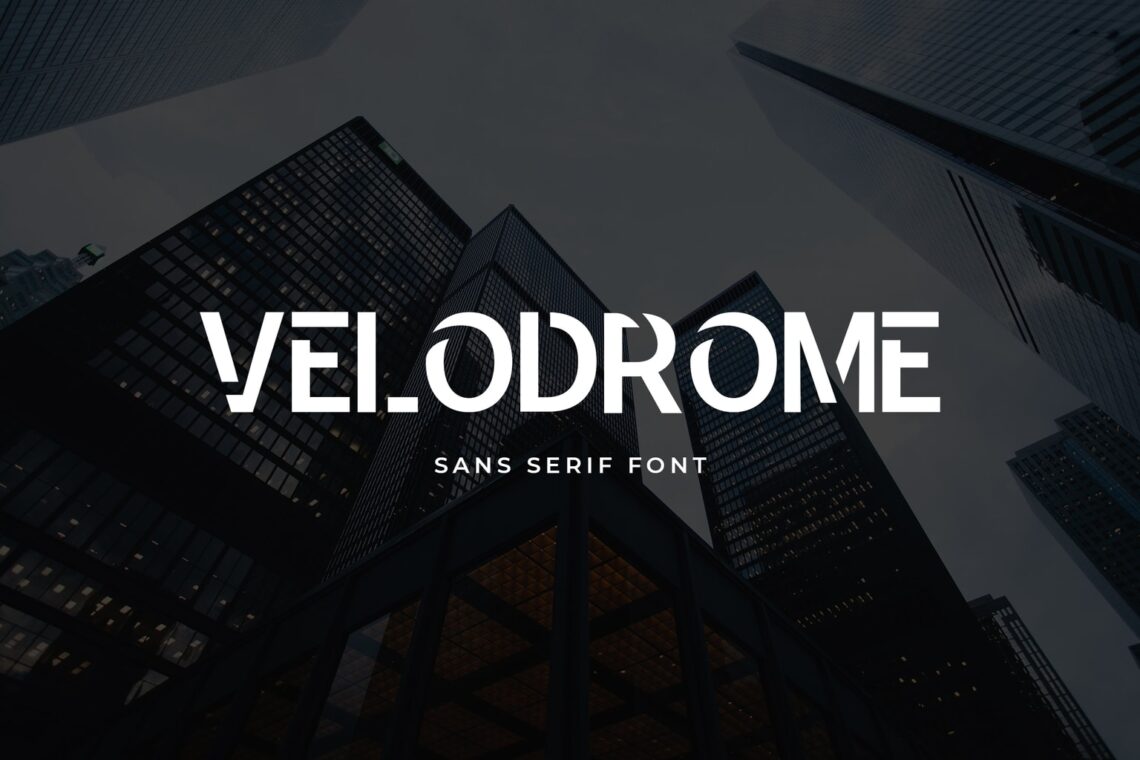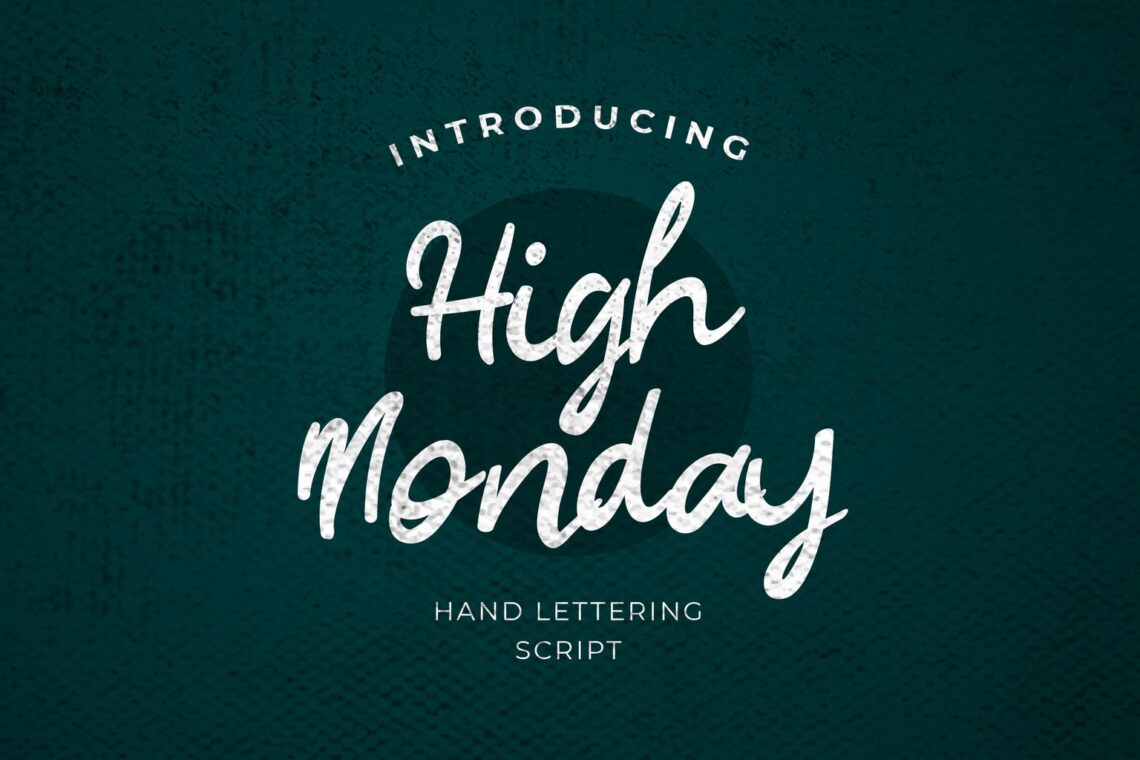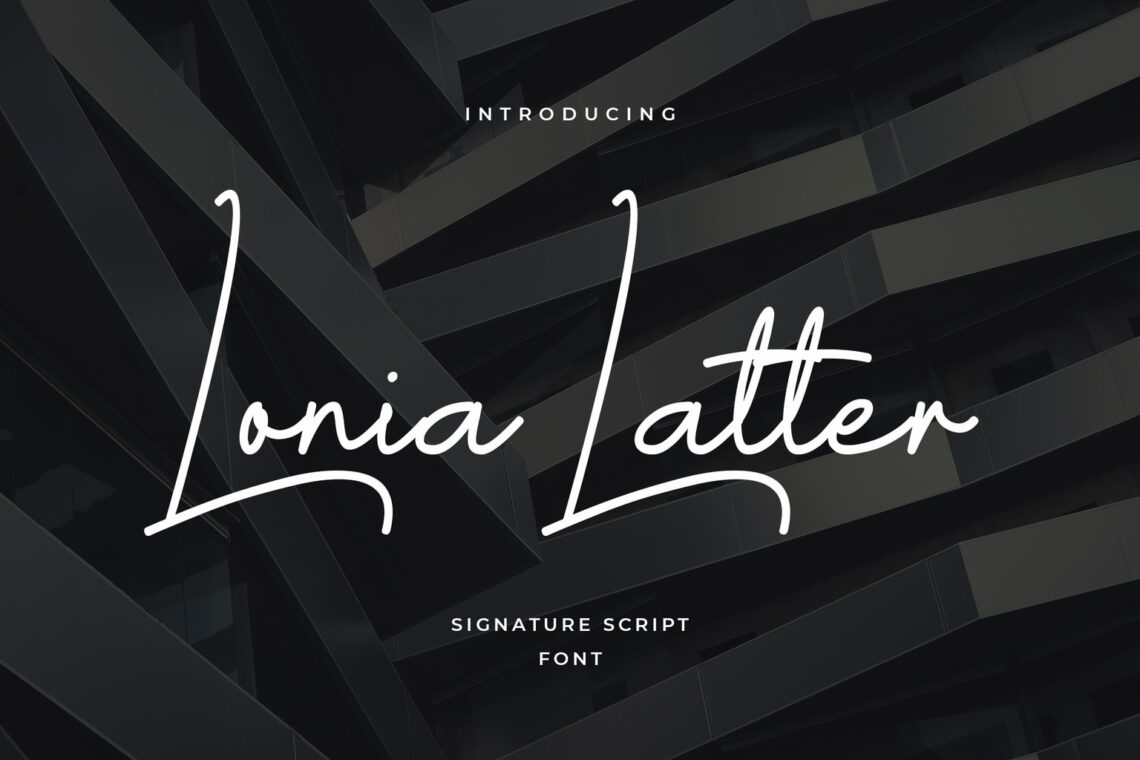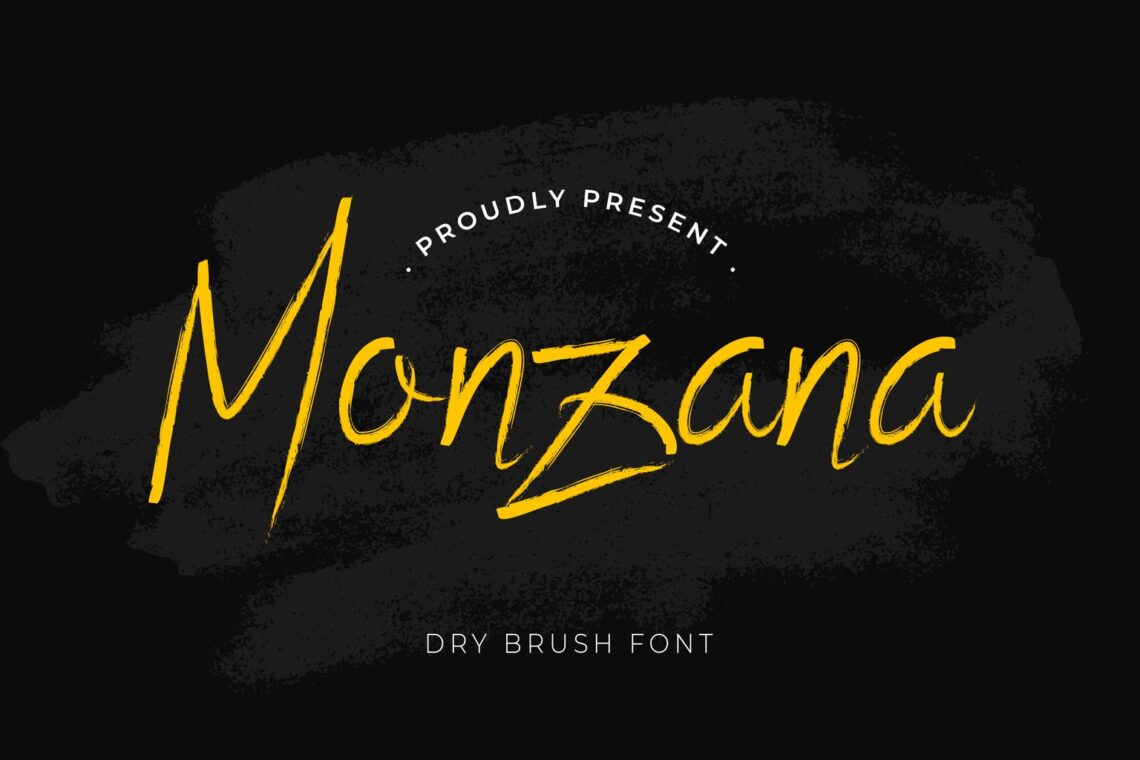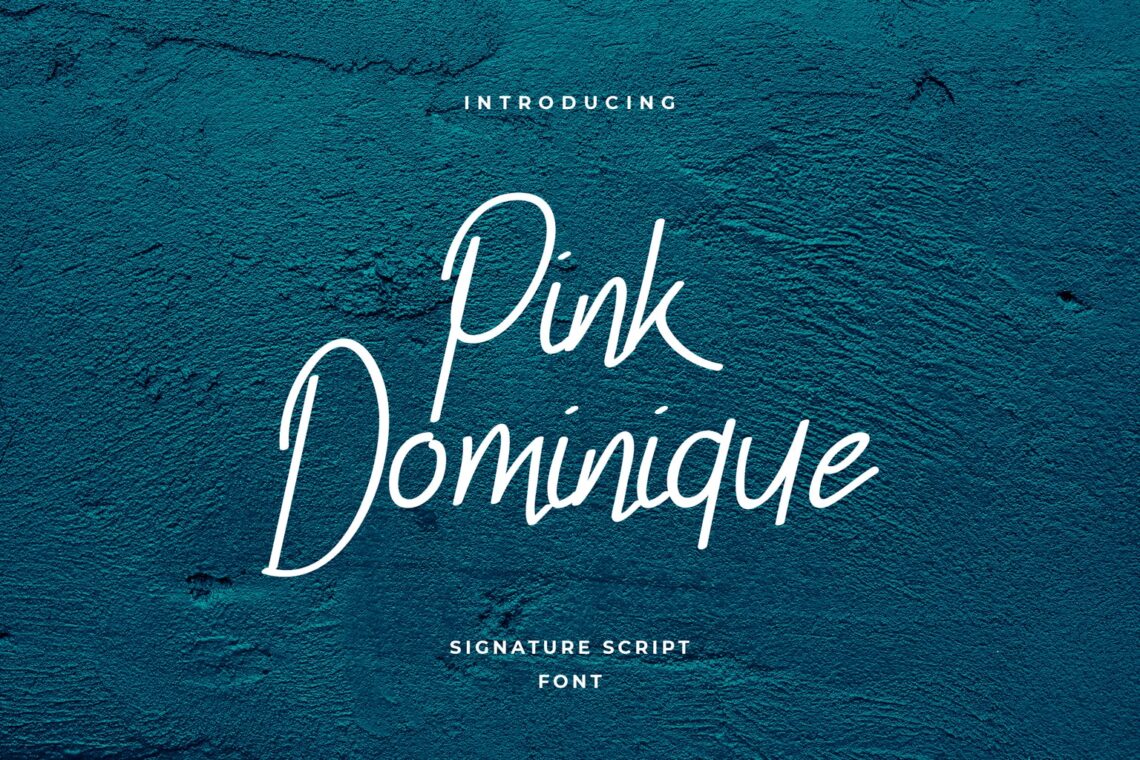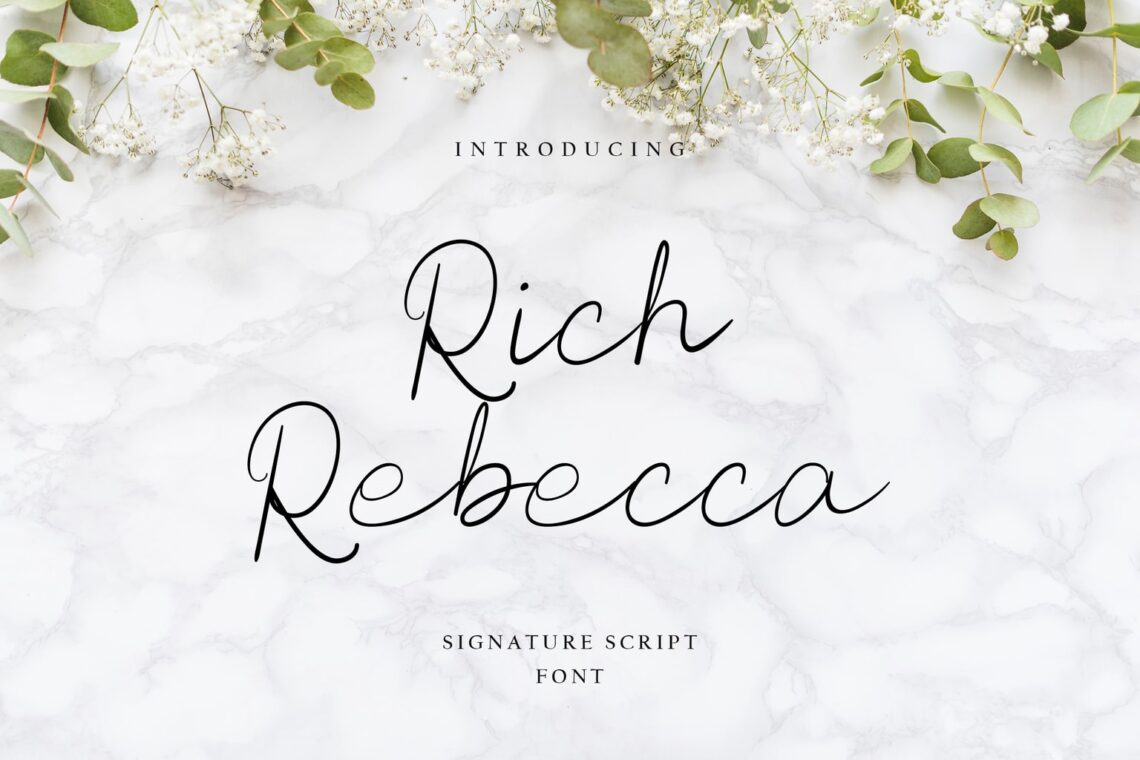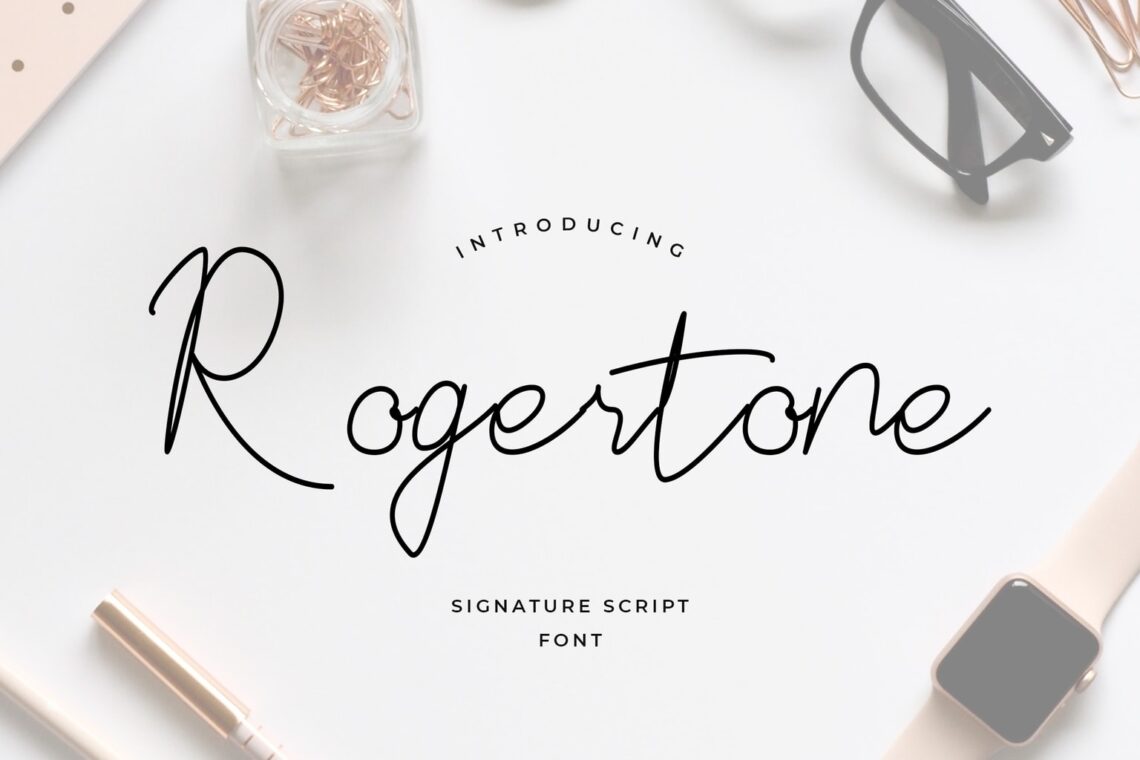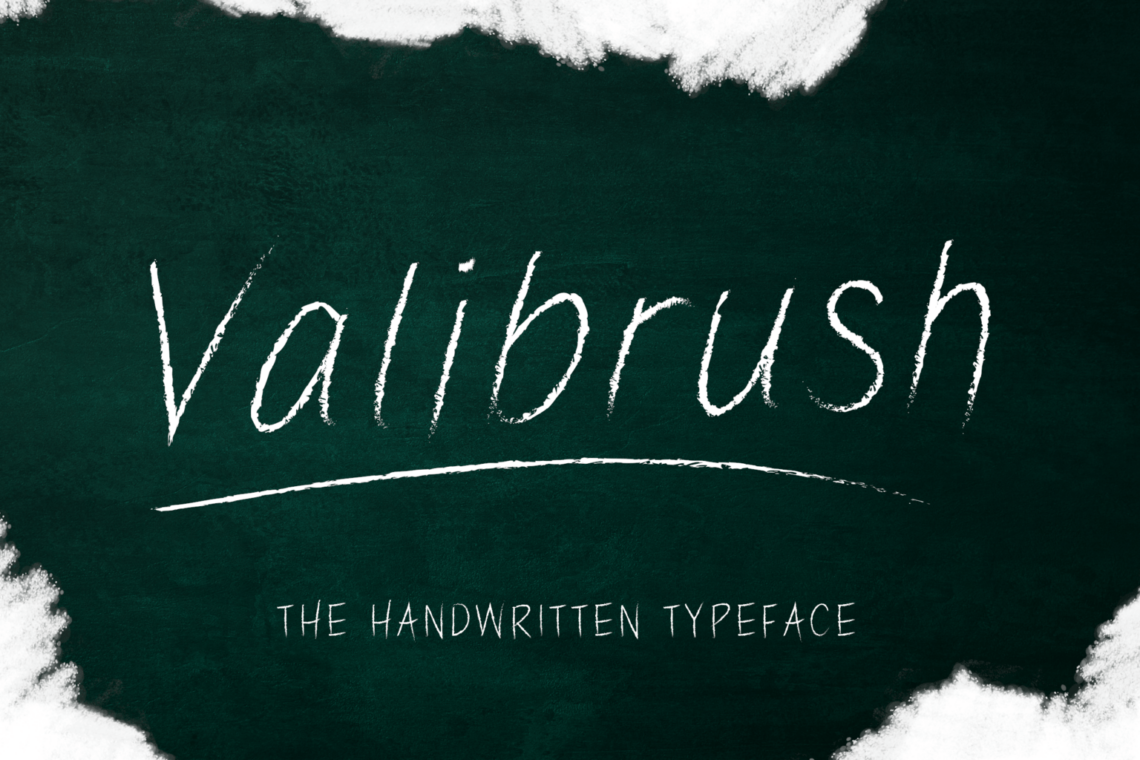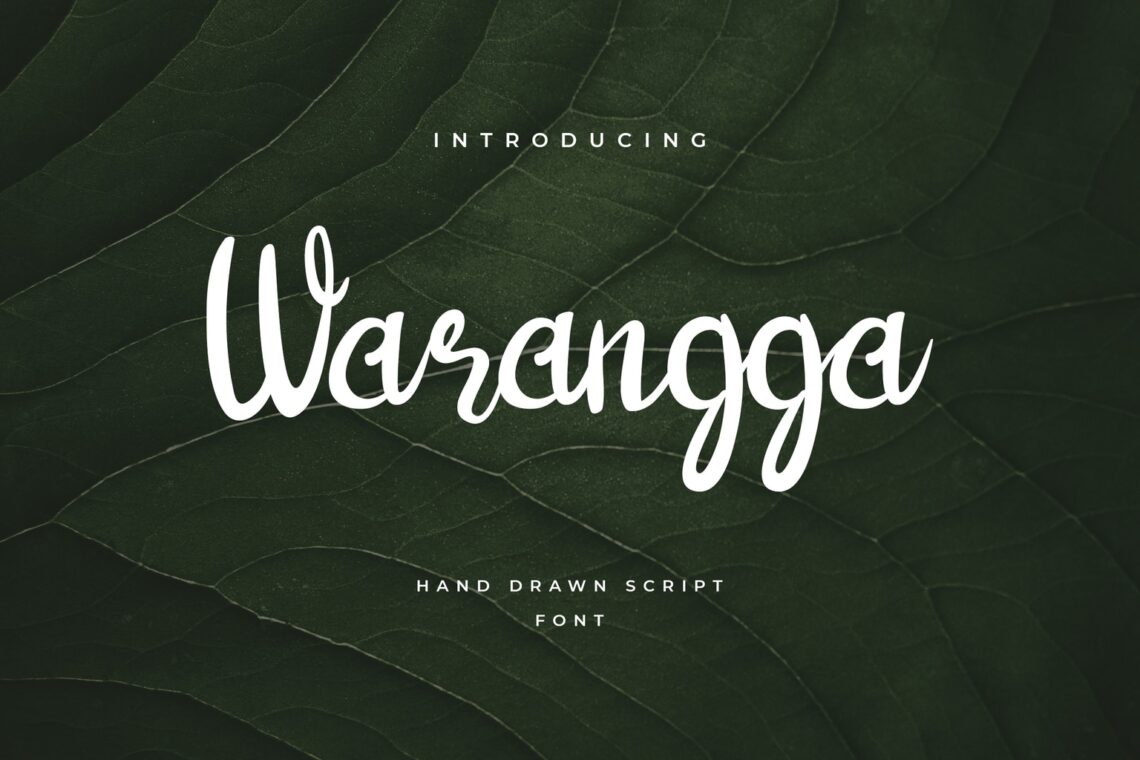
40 Best Font for Brand Design
1. Head Capital Display – font brand
A brand for vintage products will look brave and clear by this image. The bold uppercase letter looks steady to hold your brand.
2. Royal Kingsman Handbrush Typeface
A logo for scary movie brand house of production needs something sharp and full of brush. Thin in full uppercase is an implementation for horror.
3. Velodrome Display
A good point if you have modern Concept of business. Uppercase in break parts make it looks artistic and stylish. San Serif font like this give a strong image for public.
4. Neogordon Serif Display Font
brand name font design sometimes should be cheerful and light. Vintage and retro are combine in this font style. Therefore, it is suitable for packaging
5. Vertilaser Handrawn Script – Best font For logo design
Handrawn and it looks like signature. Made by hands. This is the way how you put it, in edge, in the professional layout, or in the top of paper size. The uppersize in the first letter of word has a great style. It looks like a hand writting font and package in exclusive ink.
6. Warangga Script Typeface
Famous with its artistic touch. enjoy to have it in T Shirt and tote bags. You could change its background and make it looks professional. Whenever you want to promote a new brand, a new short story, or a new novel, do not skip this font.
7. Black Fold
Opening distro needs something unique. Try this to make your T Shirt collection famous. Get it only in UI Creative main website in affordable cost. This new face of typography is adorable both for mobile users and desktop users.
8. Strongvila Handrawn Typeface
Food and beverages logo needs something colorful like this. brand font design from Strongvilla makes everything looks tasty.
9. Blue Island Modern Script
Casual style and winter collection needs something white and clear like this font.
10. Elsa Sayonara Modern Script
Enjoying a cafe with something rustic like this. Feel if you are in the 19 th century.
11. Quinn Marriot
To help your hotel and travel agencies look more emodern, try this.
12. Beach Front Modern Script
brand logo design font is suitable to use in swimming material and items brand. ts unique edge and curve, make it becomes the suit font in semi formal and formal event. You will see its vintage style and applied it in invitation, title of the journal and more publishing contents in social media. Even for your catalog of new season products, it is worth.
13. Bandonde Versatile Serif
Wanna look more formal? Try thiis simple but versatile touch. Think smart to insert in as your book logo or company.
14. Valibrush Handwritten
Think smart on having the hand brush style. It is suitable for product title and a title of children book story. A fancy style in it also looks great for T-shirt typography. Everyone in any industry may use it. Wanna make a house production? Good job if you insert the font.
15. Rogertone Signature Script
This is a signature script for anyone who enjoy this font style. It is good to have it in paperbag and food packaging.
16. Rich Rebecca Signature Script
brand font design online can be found here. for wedding and birthday company, you need this romantic font.
17. Monzana Brush Typeface
Dry brush font is suitable for coffee business. You may have it for your restaurant and cafe. Even to have it for your packaging food product, try it.
18. Oregon Point Hadwritten
Beverages package needs this font in their logo. coffee cup and paper wrap for food will look more exciting with it.
19. Pink Dominique Script
The combination color and dots in it make it looks brighter. Therefore, it is suitable for children movie, children books, magazine for teenagers, and something to be deal.
20. Lonia Latter Script
fonts lonia latter script
brandy design set font is lonia. his is a premium and high-resolution font. It is a letterpress family with exceptional vintages and charm. Having a texture of motifs and additional icon makes this font look more special and stylish. There are a combination of neat and flat typography text at the top and bottom of the font. It makes this font can be applied to all types of designs like family movies and historical books and comics.
21. Rose Marine Modern Script
fonts rose marine modern script
It has a combination of letters that are simple and upright. It shows  a formal and clean impression.
22. Christopher Lynn Script
fonts christoper lynn script
This is a simple and elegant san serif letter. You may have it for various title of projects, including for children projects and books. It is clean and clear design make it easy to read.
23. Marryland Script
fonts marryland script 1
It is a simple and modern font style. It has an upright and normal letters combination that makes it looks formal enough. More details in it makes a good impression toward this font.
Also Read : 10 Best Fonts for T-shirt Printing
24. jack Island Script
fonts jack island script
Brand design fonts for food and beverages. his font also represents the characteristics of natural paint. They are  firm and thick. It has a combination of basic fonts with curves and shapes. Both of them  are different but remain parallel between fonts. Therefore, they will look neat and clear and suitable for being display title. By having the thick weights, It is perfect for adding image and make people interested in reading or seeing.
25. Morigana Brush
fonts morigana
it is made by original hand paintings. It makes this font seems to flow naturally. It is every impressive.
26. Black William Modern Script
fonts black wiliam modern script
A classical and vintage style of font. It is suitable  for a pleasant experience in reading texts and noticing headlines. It is used for subtext applications with the heavier weights too. This font is inspired by the  fonts in the 19th century.
27. Wollington Script
fonts wolington script
It is based on geometric forms with perpendicular architecture such as regular serif fonts. Therefore, it is suitable for presentation title.Having properties and hotel? It would be unique if you apply this font.
28. Gunman Script
fonts gunman script
Gunman has a combination of uppercase, lowercase letters, numbers, and punctuation. They are neat and clean. It makes this font can be applied and used on all types of projects like news headline and presentation title. It is hand write script. Look great for advertising logo.
29. Moongraz Serif
fonts moongraz sans serif
Kids fashion need something different. Enjoy this font. A font that has a unique character that belongs to the Victorian serif family. The typographic style is simple and organized but has a different sharp angle in the middle. Therefore, it looks exclusive and modern.
30. Wolfstar Brush Script
fonts wolfstar brush script
It perfectly represents vintage aesthetics in a classic and minimalist way. It is good for movie and short story books title. It gives a reader time to imagine  the classic era toward this letter.
31. Heatwalk Brush Script
fonts heatwalk brush script
Natural product should try to insert this font as their logo.
32. Yosarosa Signature
fonts yosarosa signature
It has a combination of letters that are simple and upright. The style is giving a strong and formal impression. This attractive and premium font is perfect for a variety of brands and projects that require clear and classy font types like presentation and premium journal. In addition, you may use it for elegant magazine title.
33. View Vacation Brush
fonts view vacation brush
Its signature brush hits and also extremely usable in large and small formats. You could enjoy the natural texture of the balanced paint effect between fonts. Therefore, make this font look smooth, clear, and cool. You only can be found it in this font style. Casual style need it.
34. Handmade Brushes
fonts handmade brushes
A vintage and elegant style that could be used as multi purpose aim. It is vintage, but you can use letter and number of it including the punctual items.
35. Nineland Serif
fonts nineland serif
Travel time or scientific movie need this font to empower its story. The legend of city including the life and culture of people in it influence the movie script. It is simple but broken in the middle. You will find it in thriller and action movies title. The thriller novel would use it too.You have to try it for mug and home necessities.
36. Blade Brotherhood
fonts blade brotherhood
It has a vintage festival style. It has a thick and firm lines and typography at each end of the letter. It makes the font beautiful. The  distinctive curves  make this font more stylish. By a combination of neat and flat fonts on all sides, this font looks firm, soft, and elegant. Therefore, it suitable for poster title and books, but the scary books.
37. Light Paprica Handwritten
fonts light paprica handwritten
It has a geometric shape on each side. It is giving the impression of neat and character. Make unforgettable with a little help from the lettering used for various promotional materials by font. Use on posters, invitations, book covers, logos, or packaging of the movies. It helps to gain great promotion.
38. High Monday Script
fonts high monday script
Some good views come from this font. In combination and design, this font looks challenging and natural looking paint with grunge effects and paint strokes. It has thick typography but still aesthetic and harmony. You may use it for any purpose including story book title, souvenirs, and wedding bucket.
39. Good Summer Script
fonts good summer script
Created to make a huge statement, it even comes in unique style and textures to offer a vintage feel to any work. Use for posters, headers, blogs, cartoons, or gaming designs to bring a smile to your viewers’ faces. Pair with fun patterns or animated backgrounds for a truly unique look! You are awesome when you could combine its basic color and the font color in it.
40. Standka Vintage Script
fonts standka vintage script 1
It has a contemporary style. The bold and handmade style make it such as a perfect combo for any projects. Use it for movie title, book title, poster, and journal are suitable and fit. in addition, you may use it for presentation headline too. Gain much attention after you apply this font design to your project.
This font is a natural brush style and there are elements of modern painting style. It has combination of brush strokes on each side of the font and horizontal splinters. Both of them make this font look stylish, unique, and striking. It is suitable for various design projects that want to take a modern and stylized theme. You also could play around with size and see the difference. Use for logos, displays, branding materials, or apparel.  Whatever it is the aim is to promote the movies. Make public remind your movie and save the date to watch it in theater. Also, when a movie has stopped to launch in theater, the title still in public mind.
It will be different story when you insert all of these font for your logo. IT will create a strong mindset for public. Therefore, your brand would raise higher profits. Whatever your business is, you need to look professional and have a good impression from others. Maybe you may think that font is a simple and small thing in  titles. It is not only save your time, but enhance your impression. In order to gain much attention, it simple when you purchase the right font. It is time to stay focus on your project and let the simple design touch is done by professional designers who have more experiences to do it. Do not use a big size of font which fulfill the whole cover of the books. Do not also use light background and font color for sad story. You know how to deal with it. Let UI Creative helps you in this case. Everything related to font is affordable. Therefore, you could try to select one and easily change into another one without worry to cost more.